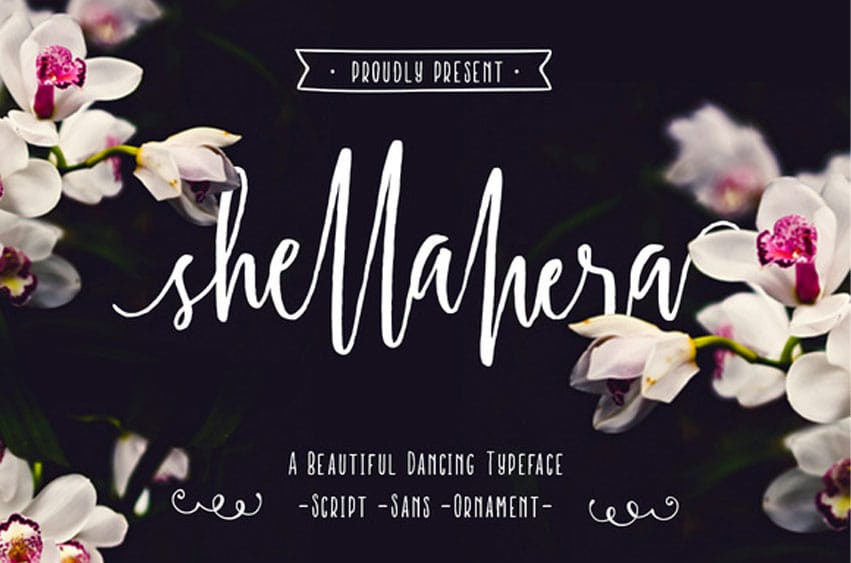
Shellahera Script Font is a handwritten script font. It is made using an original brush pen and scanned with high resolution.
It also has a beautiful dancing baseline.
Shellahera Script Font Preview
Shellahera Script Font is a handwritten script font. It is made using an original brush pen and scanned with high resolution.
It also has a beautiful dancing baseline.